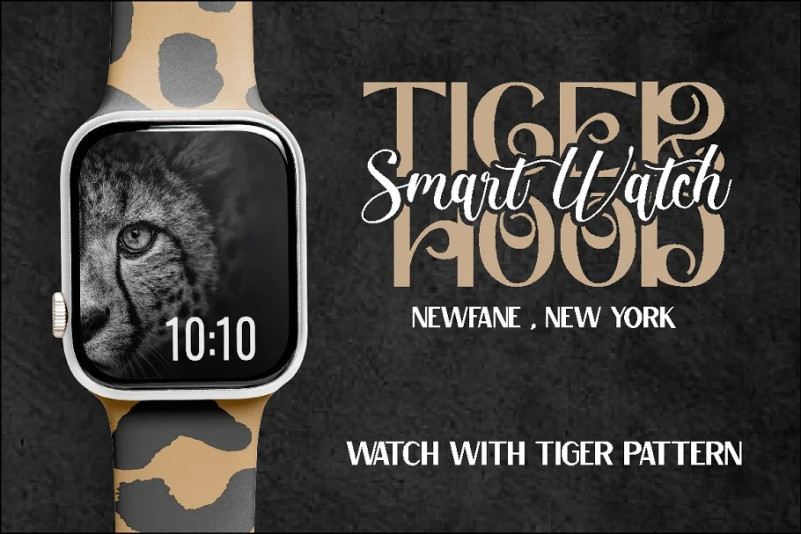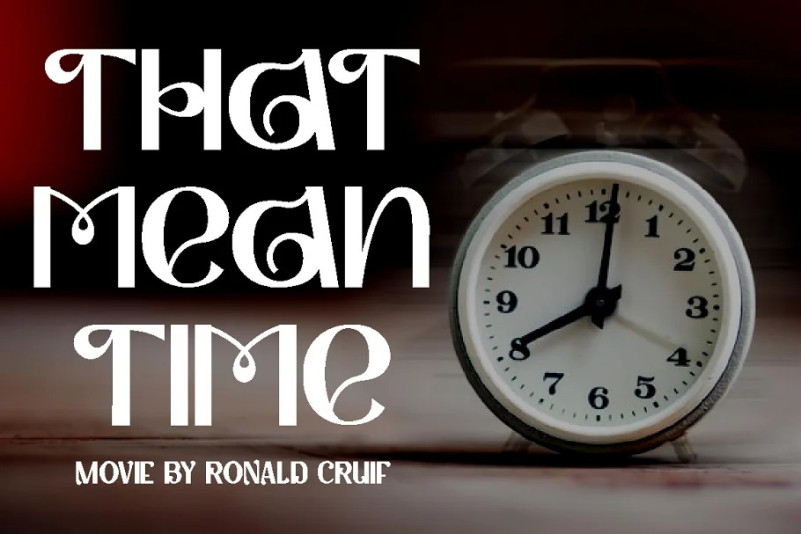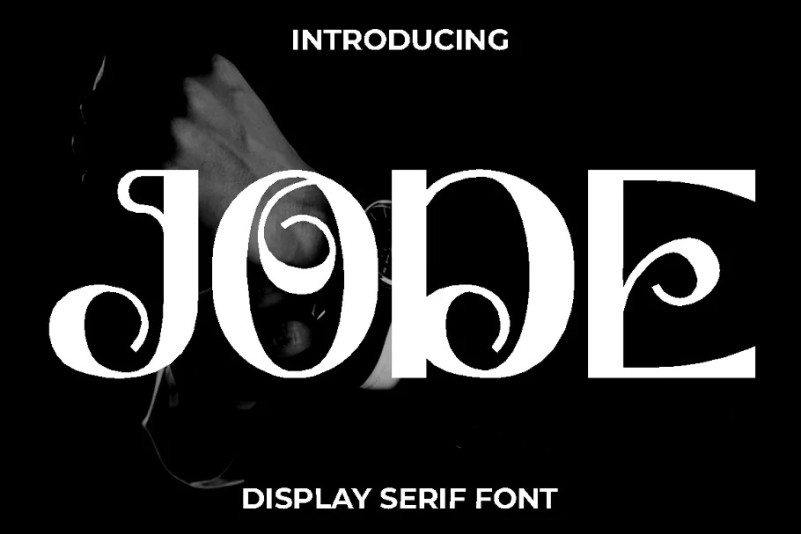
Jode Font
Jode Display Font . Inspired from luxury serif from the display cover and we combine with elegant typeface style. With a total of 534 glyphs with 359 alternate, you can make great display combinations for lettering with a lot of options. Come with open type feature ( a lot of alternates and end swash), its help you to make great lettering. Jode font is also support multi language. Jode best uses for Logotype, heading,cover, poster, logos, quotes, product packaging, header, merchandise, social media & greeting cards and many more.